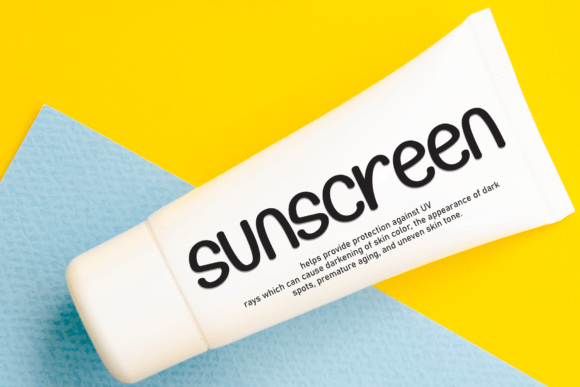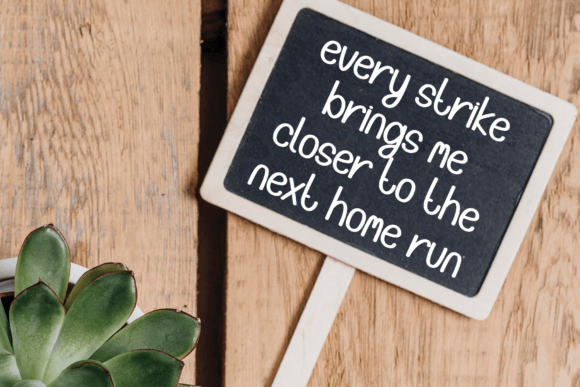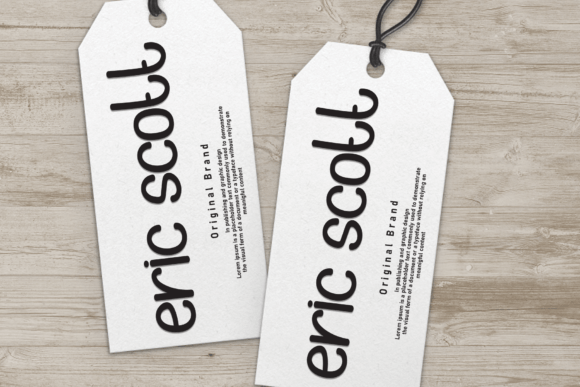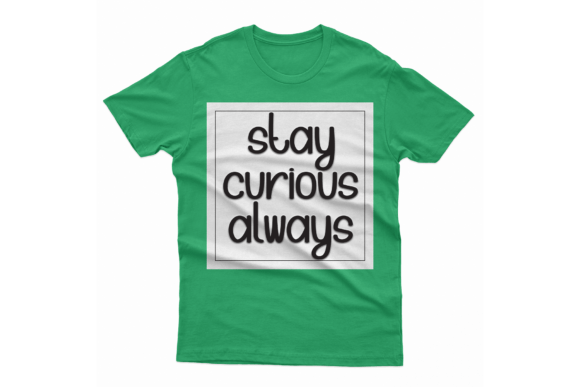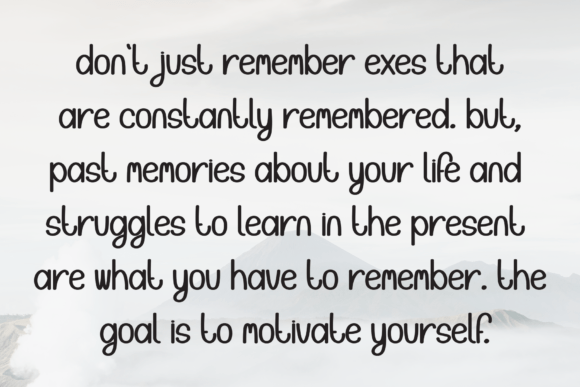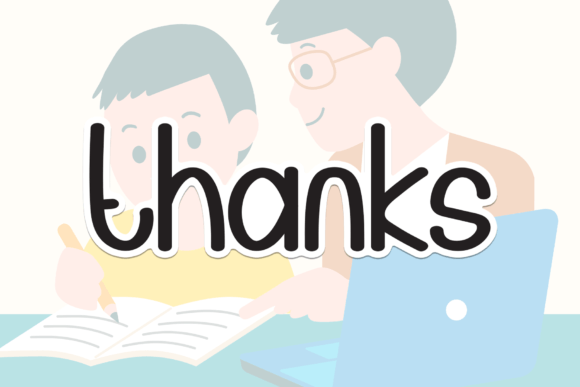
Introduction to Sibling Smart Font
As designers, we’ve all been there – staring at a blank canvas, trying to decide on the perfect font to bring our creative project to life. And then, it happens – a spark of inspiration hits, and we stumble upon the perfect match. For those looking to add a touch of whimsy to their designs, the Sibling Smart Font is sure to be a game-changer.
This charming handwritten display font is more than just a pretty face; it’s a valuable design resource that can elevate even the most mundane projects. With its high-quality design and transparent background, it’s perfect for adding a fun touch to wedding invitations, cards, or any other design that needs a little extra love.
Key Features of Sibling Smart Font
- High-quality design resource ideal for creative projects, offering a professional touch
- Comes in 7 different styles and weights, providing a wide range of design possibilities
- Perfect for use in logos, typography, and other design elements, thanks to its high-quality and versatile design
Honest Review: Sibling Smart Font
I recently had the opportunity to work with Sibling Smart Font on a creative project, and I was thoroughly impressed with the results. This font is a fantastic addition to any designer’s toolkit.
Here are some things that work well with Sibling Smart Font: ✨
- High-quality typography: Sibling Smart Font is crisp, clear, and perfect for any text-based design.
- Easy customization: The font is highly customizable, allowing you to adjust the size, color, and style to fit your needs.
However, I did encounter a few limitations: ⚠️
- Limited transparency options: While the font itself is great, the lack of transparent background options can make it difficult to use in certain design situations.
- No bold or italic options: While the font is highly customizable, it would be great to have more font weight and style options.
Overall, I’m very impressed with Sibling Smart Font. It’s a high-quality design resource that is perfect for designers working on creative projects. With a few tweaks to address the limitations, it could be an even more valuable tool in the design world.
Sibling Smart Font
The Sibling Smart Font is a versatile design resource that offers a high-quality, transparent background perfect for any creative project. With its sleek and modern design, it’s ideal for designers and non-designers alike.
Tips for Getting the Most Out of Sibling Smart Font
To maximize the potential of the Sibling Smart Font, use it in conjunction with other design elements that complement its modern aesthetic. Experiment with different font sizes and colors to create a visually appealing design.
The Sibling Smart Font is perfect for creating eye-catching headings, titles, and labels. It’s also great for designing social media graphics, posters, and flyers.